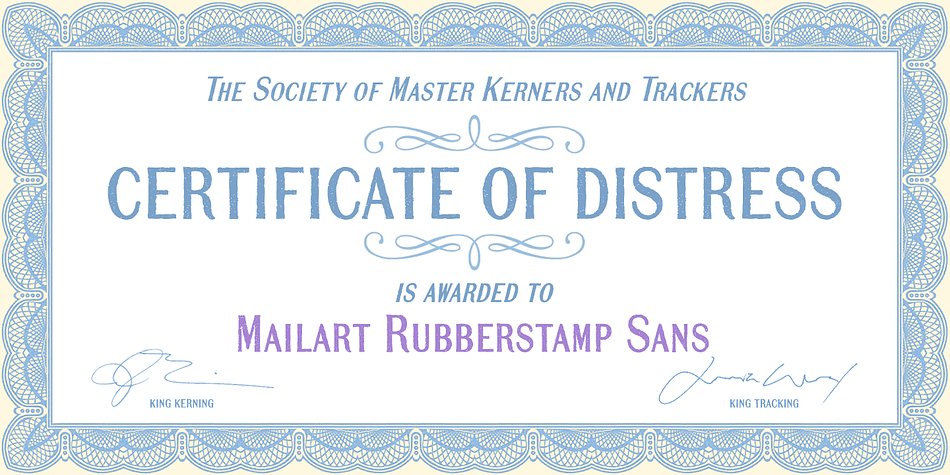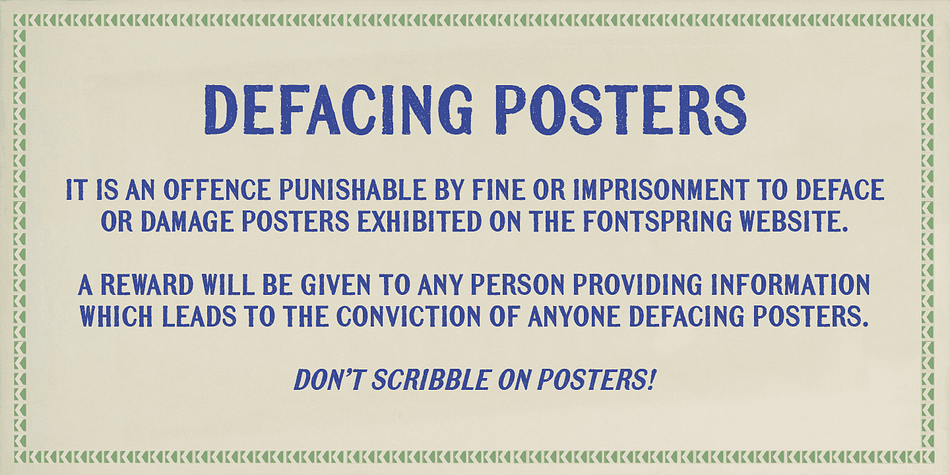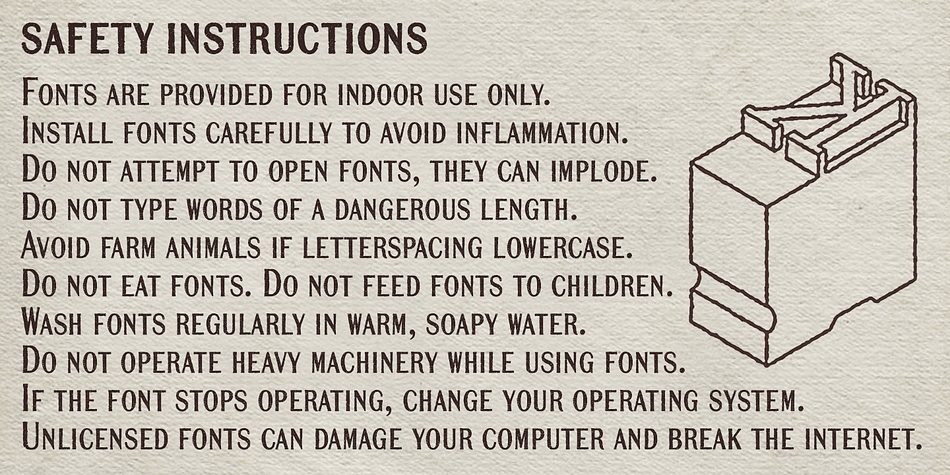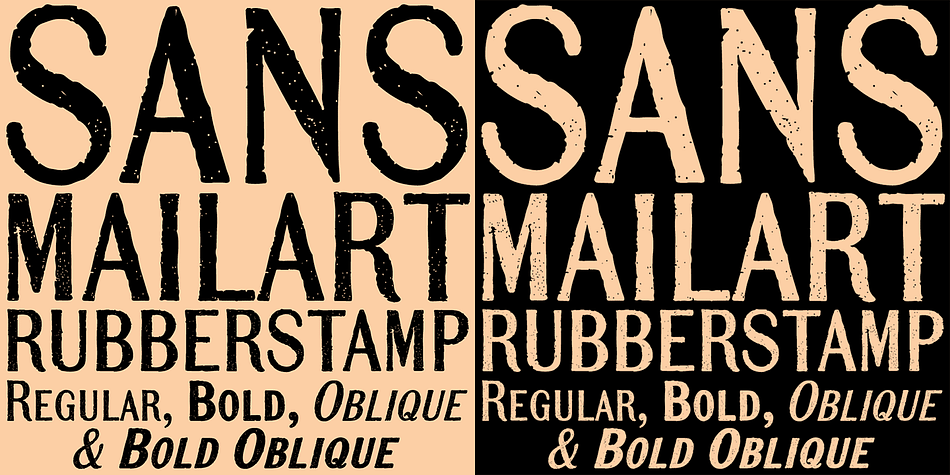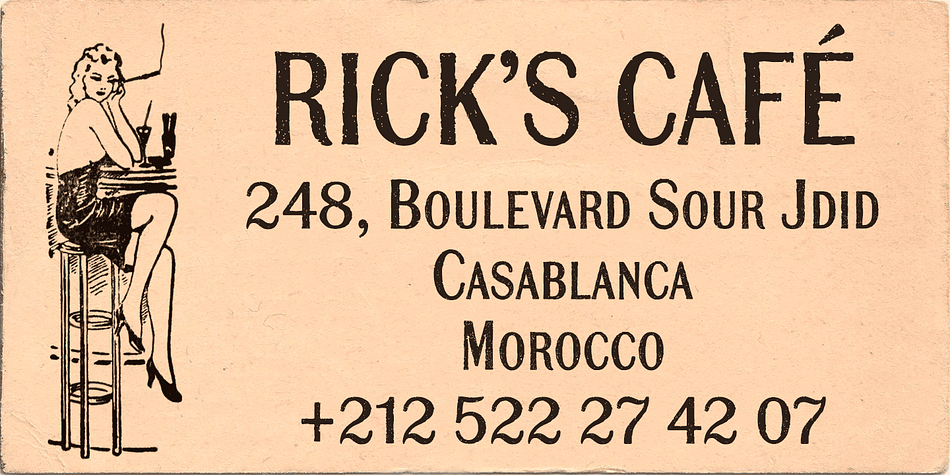
Designed by Keith Bates, Mailart Rubberstamp Sans is a display sans font family. This typeface has four styles and was published by K-Type.
A slightly distressed sans-serif based on K-Type Mailart Rubberstamp. Thinner strokes have been thickened a little to compensate for the loss of serifs.